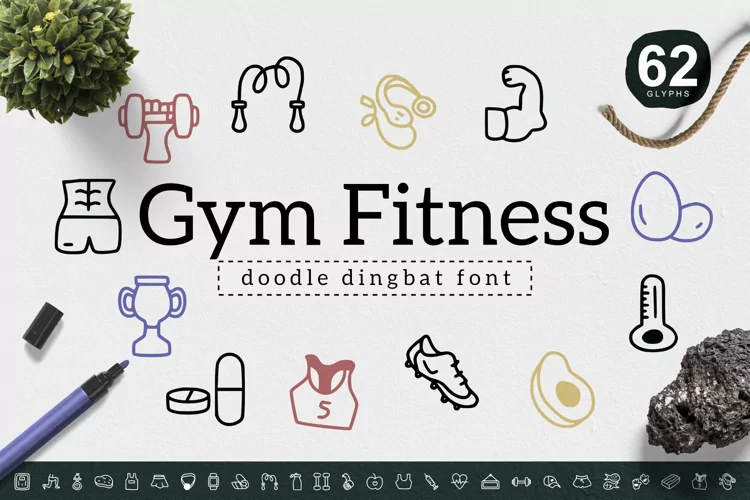
Gym Fitness Dingbat
Gym Fitness Regular
Gym Fitness Dingbat
Simple Gym Fitness doodle dingbat, suitable for many project, logo, ornament etc.
Contain 62 symbols as the preview above.